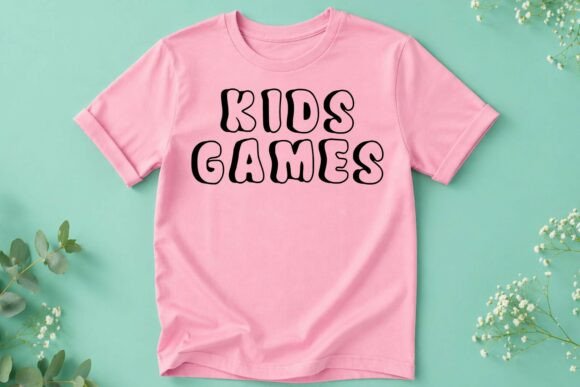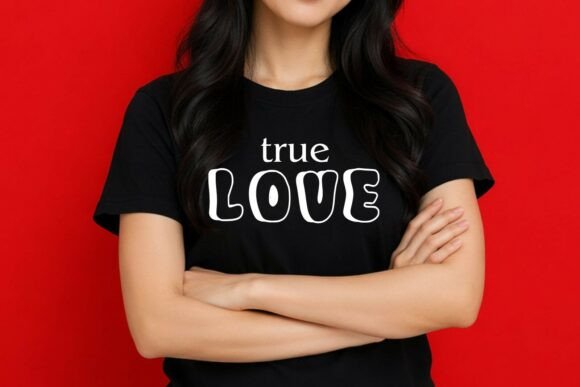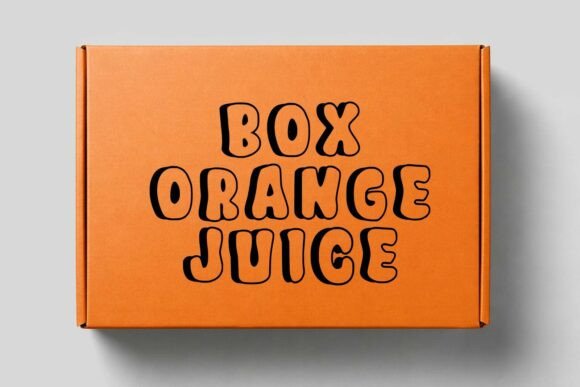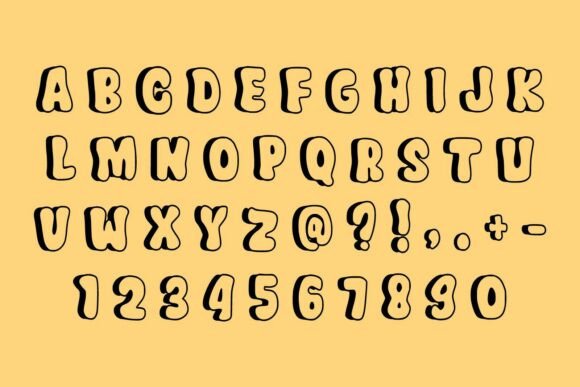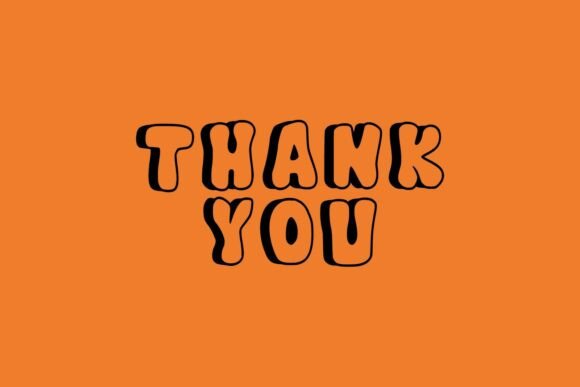
Introducing Chunky Outline Retro Display Font: The Ultimate Retro Typography Experience
Are you looking for a font that can add a bold and playful touch to your design projects? Look no further than the Chunky Outline Retro Display Font. This fun and nostalgic typeface is inspired by retro typography and vintage design styles, making it perfect for creative projects that need a cheerful and eye-catching retro vibe.
What is Chunky Outline Retro Display Font?
Chunky Outline Retro Display Font is a bold and playful typeface that features thick, rounded letterforms with a distinctive outline. The font’s chunky and rounded style gives it a friendly and approachable feel, making it ideal for designs that need a fun and lighthearted touch. The outline adds a touch of sophistication and elegance, making it suitable for a wide range of design applications.
Key Features of Chunky Outline Retro Display Font
- Bold and Playful Style: The font’s chunky and rounded letterforms make it perfect for designs that need a bold and playful touch.
- Retro Typography Inspiration: The font is inspired by retro typography and vintage design styles, giving it a unique and nostalgic feel.
- Distinctive Outline: The outline adds a touch of sophistication and elegance to the font, making it suitable for a wide range of design applications.
- Versatile and Flexible: The font is perfect for a wide range of design projects, including posters, logos, t-shirt designs, stickers, branding, packaging, social media graphics, and retro-themed artwork.
Use Cases for Chunky Outline Retro Display Font
Chunky Outline Retro Display Font is a versatile typeface that can be used for a wide range of design projects. Here are some use cases where this font can shine:
- Posters and Flyers: The font’s bold and playful style makes it perfect for posters and flyers that need to grab attention.
- Logos and Branding: The font’s unique and nostalgic feel makes it ideal for logos and branding projects that need a retro touch.
- T-Shirt Designs: The font’s chunky and rounded style makes it perfect for t-shirt designs that need a fun and playful touch.
- Stickers and Packaging: The font’s bold and eye-catching style makes it suitable for stickers and packaging designs that need to stand out.
- Social Media Graphics: The font’s friendly and approachable feel makes it perfect for social media graphics that need to engage and entertain.
- Retro-Themed Artwork: The font’s retro typography inspiration makes it ideal for retro-themed artwork that needs a authentic and nostalgic feel.
Why Choose Chunky Outline Retro Display Font?
There are many fonts available that offer a retro or vintage feel, but Chunky Outline Retro Display Font stands out from the crowd. Here are some reasons why you should choose this font for your next design project:
- Unique and Nostalgic Feel: The font’s retro typography inspiration gives it a unique and nostalgic feel that is hard to find in other fonts.
- Versatile and Flexible: The font is perfect for a wide range of design projects, from posters and logos to t-shirt designs and social media graphics.
- Easy to Read: The font’s chunky and rounded style makes it easy to read, even at small sizes.
- High-Quality Design: The font is designed to high-quality standards, ensuring that it looks great in any design project.
Chunky Outline Retro Display Font is a bold and playful typeface that is perfect for creative projects that need a fun and nostalgic touch. With its unique and nostalgic feel, versatile and flexible design, and high-quality construction, this font is sure to become a favorite among designers and crafters. Whether you’re working on a poster, logo, t-shirt design, or social media graphic, Chunky Outline Retro Display Font is the perfect choice for adding a retro touch to your design.